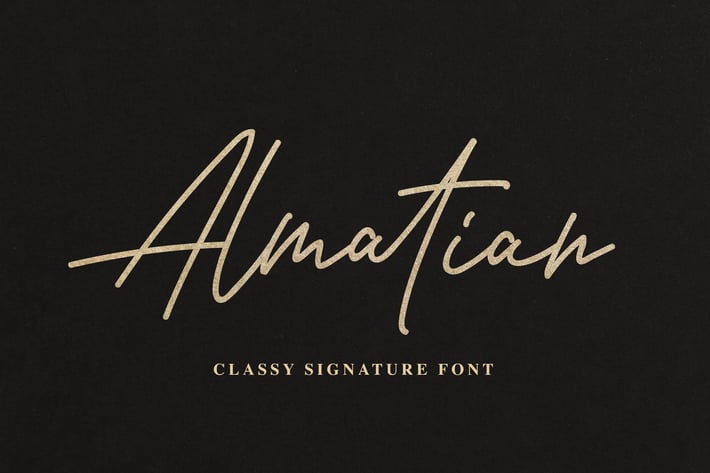
Almatian - Classy Signature Font
Introducing of our new product the name is Almatian Classy Signature Font inspired by signature, Almatian is good for logotype, wedding invitation design, badge, headline, signature, packaging and any more.